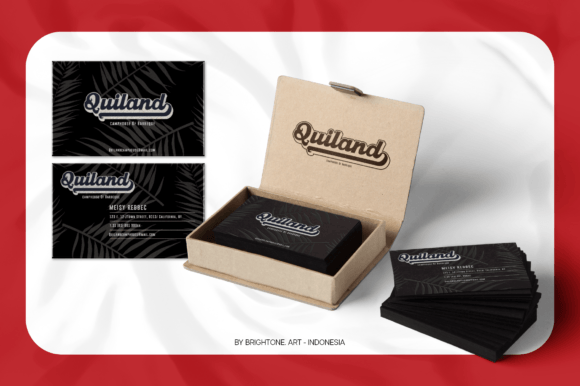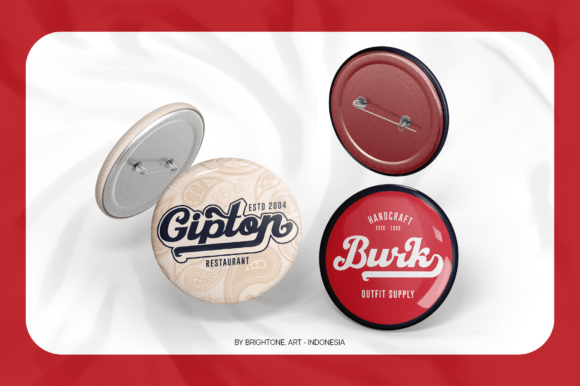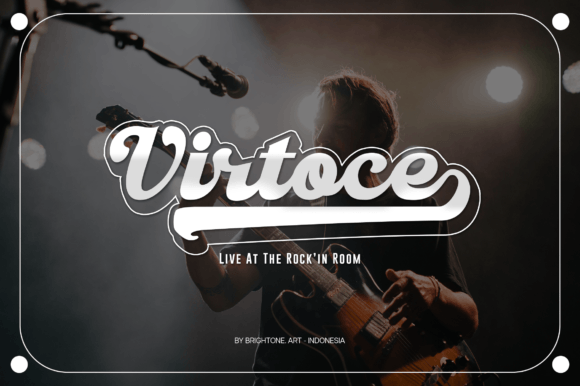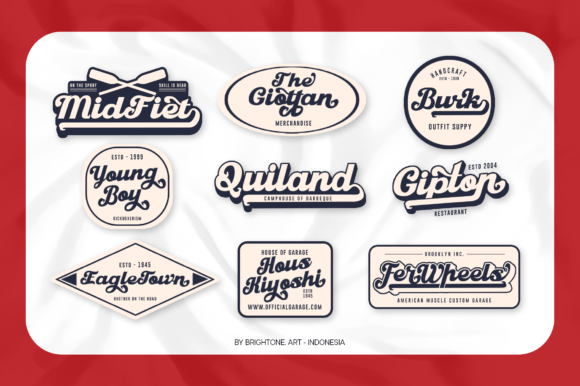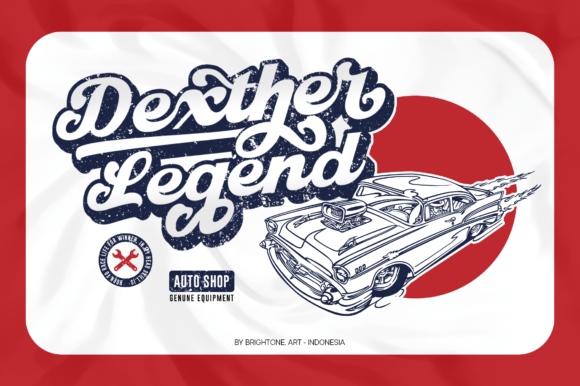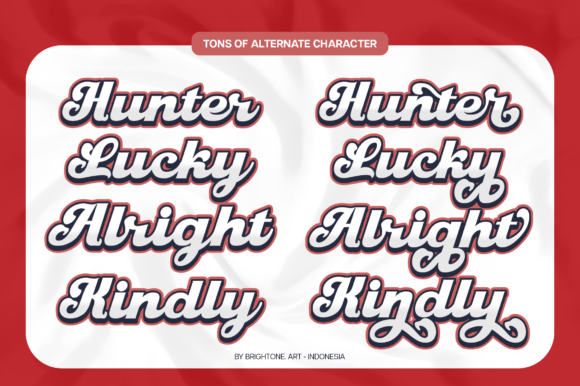
Where Creativity Takes Flight: The Butterfly Effect Font
You’ve spent hours brainstorming the perfect concept for your next design project, and finally, it clicks – the words flow effortlessly, and the vision takes shape. But what if you could infuse that spark of creativity into every aspect of your design, from logos to labels? Welcome to the world of Butterfly Effect Font, a bold, handwritten font that adds a touch of elegance to any creation.
Designed with versatility in mind, Butterfly Effect Font is perfect for logo lettering, branding, and packaging. Its classy touch makes it an ideal choice for designers looking to elevate their projects. With its PUA encoding, you’ll have access to a wide range of glyphs and swashes, giving you the freedom to experiment and push the boundaries of your creativity.
Butterfly Effect Font Key Features
- Font Family: Butterfly Effect is a unique, hand-drawn font designed to evoke a sense of whimsy and playfulness.
- Unique Characteristics: Features a distinctive, hand-drawn style with subtle imperfections and texture, giving it a one-of-a-kind feel.
Designer Review: Butterfly Effect Font
At first glance, the Butterfly Effect Font has a unique and intriguing aesthetic ✨. The bold and playful design elements work well in certain contexts, such as in creative or artistic projects. The font’s dynamic feel can add a sense of movement and energy to text, which is particularly effective in headings or titles.
- The Butterfly Effect Font excels in its ability to create visual interest and draw attention to specific elements on a page.
- It works well in digital applications, where its dynamic feel can be particularly effective in animations or interactive elements.
However, there are some limitations to consider ⚠️. In certain situations, the font’s boldness can be overwhelming or difficult to read, particularly in large blocks of text. Additionally, the font’s dynamic feel may not be suitable for formal or professional applications.
Overall, I would say that the Butterfly Effect Font is a great choice for designers who want to add a touch of creativity and whimsy to their projects. However, it may not be the best choice for every situation, and designers should carefully consider the context in which they will be using the font.
The Butterfly Effect font is ideal for creative projects, such as:
- Brand logos and marketing materials
- Illustrations and artwork